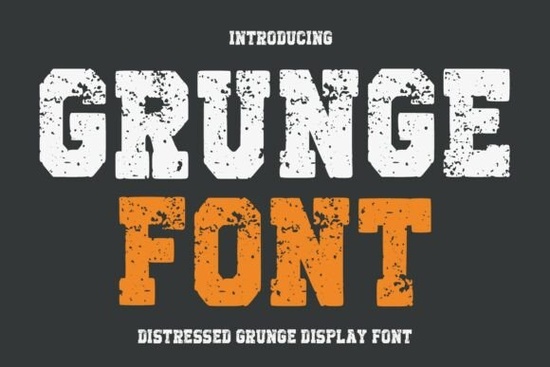
Designers, crafters, and small business owners often look for fonts that can add a unique edge to their projects. The Grunge Font is one such typeface that stands out with its raw, edgy style. This bold display font draws inspiration from vintage grunge aesthetics and street typography, making it ideal for a wide range of creative applications. Whether you're working on posters, apparel, or branding, the Grunge Font brings a sense of authenticity and visual impact that's hard to replicate.
The Grunge Font features rough textures and worn details that give it a distressed look. These elements make it perfect for designs that aim to convey a rugged, urban vibe. Its block letterforms are strong and eye-catching, ensuring that your message stands out. This font works well for album covers, sports designs, and retro projects where a gritty aesthetic is desired.
If you're looking for a font that adds character without being too flashy, the Grunge Font is a solid choice. It’s versatile enough to fit into various design contexts while maintaining its distinct personality. For those interested in similar styles, you might also explore other fonts like Oldport Script or Sunny Muff, which offer different takes on expressive typography.
What Makes the Grunge Font Stand Out?
The Grunge Font is more than just a visually striking typeface it’s a tool that can elevate your creative work. Its distressed appearance gives it a sense of history and authenticity, which can be especially valuable for projects with a retro or alternative theme. The font’s texture and wear details make it feel handcrafted, adding depth to any design.
One of the key strengths of the Grunge Font is its adaptability. It works well in both digital and print formats, making it suitable for everything from social media graphics to t-shirt designs. Its boldness ensures that it remains legible even at smaller sizes, while still maintaining its distinctive look.
For designers who want to experiment with unconventional typography, the Grunge Font offers a fresh alternative to more traditional typefaces. It’s particularly useful for projects that require a strong visual statement, such as event posters, brand logos, or merchandise designs.
Best Uses for the Grunge Font
The Grunge Font is ideal for a variety of creative purposes. Here are some common applications:
- Posters and Banners: Use it to create eye-catching headlines for events, concerts, or promotional materials.
- Apparel Design: Add a rugged look to t-shirts, hoodies, or other clothing items.
- Branding and Logos: Incorporate it into logos for businesses that want to convey an edgy or alternative image.
- Album Covers: Perfect for music projects with a grunge or alternative theme.
- Retro Projects: Bring a vintage feel to packaging, signage, or other design elements.
Its versatility makes it a go-to choice for many designers. Whether you're working on a personal project or a client’s request, the Grunge Font can help you achieve the right tone and style.
How to Choose the Right Font for Your Project
When selecting a font, consider the overall mood and purpose of your design. The Grunge Font is best suited for projects that benefit from a bold, textured look. If you’re aiming for something more refined or minimalist, you might prefer a different typeface.
It’s also important to test the font in different sizes and contexts. While the Grunge Font looks great in large headlines, it may not be the best choice for body text. Always ensure that the font complements the rest of your design elements.
For those exploring similar styles, you might find other fonts like Athletic College or Sport Grunge useful. Each has its own unique characteristics that could fit different design needs.
Before finalizing your design, take the time to review how the font looks in different settings. Ensure that it aligns with your project’s goals and audience. With the right approach, the Grunge Font can become a valuable addition to your design toolkit.
Quick Checklist:
- Test the Grunge Font in different sizes and layouts.
- Ensure it matches the tone of your project.
- Consider pairing it with complementary fonts for balance.
- Explore other display fonts if needed.
By taking these steps, you can make the most of the Grunge Font and enhance your creative work with a bold, distinctive style.